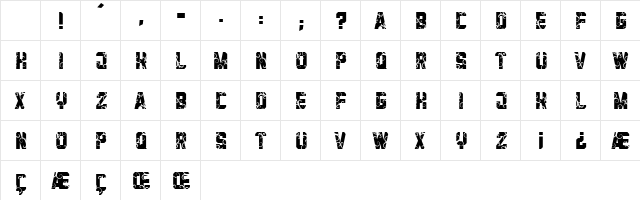
Mama Love is a composed and adaptable typeface that performs quietly and consistently across a wide range of design contexts.
Pro Tip: Use Mama Love in both headline and body roles to test its range before committing to a single application.